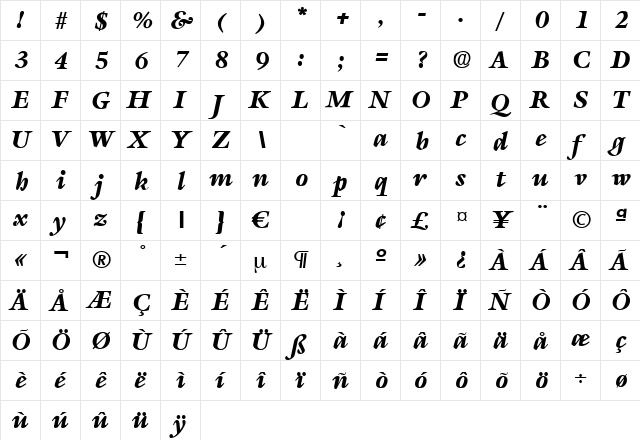
Sevilla Regular
Design Context for Sevilla Typeface
Sevilla takes a measured approach to typography — its balanced proportions and neutral character make it a reliable workhorse for both digital and print work.